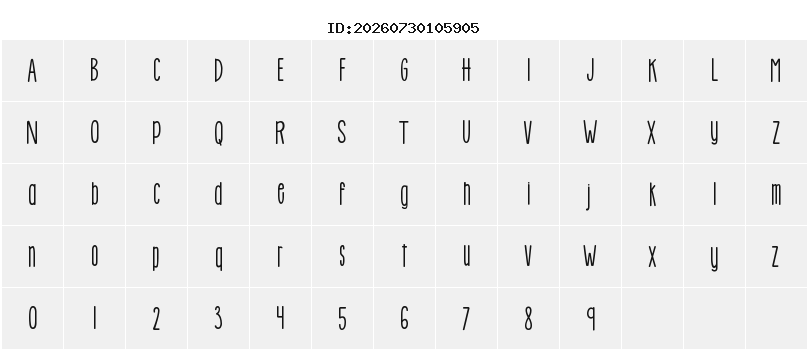
KG How Many Times Preview
• Font Name: KG How Many Times
• Font ID: KimberlyGeswein: KG How Many Times: 2012
• Full Font Name: KG How Many Times
• Version: Version 1.000 2012 initial release
• PostScript Name: KGHowManyTimes
• Character Count: 366
• Designer: Kimberly Geswein
• Manufacturer: Kimberly Geswein
About KG How Many Times.ttf
KG How Many Times.ttf is a modern, elegant sans-serif font designed for ultimate readability and visual harmony. Perfect for branding, headlines, web design, and print materials.